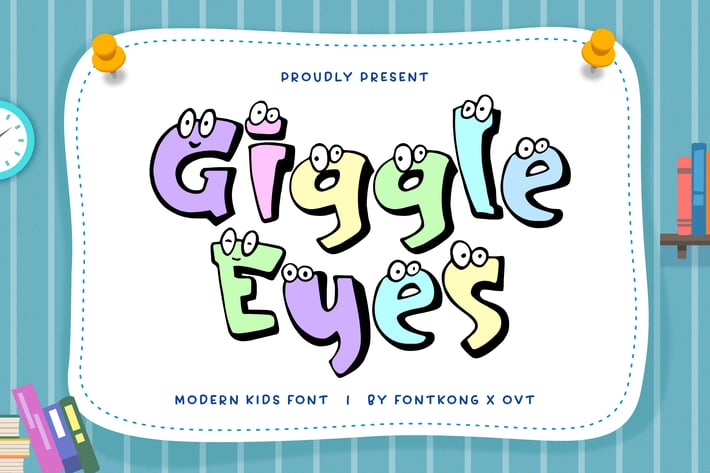
Giggle Eyes - A Modern Kids Font
Giggle Eyes is a whimsical and joyful kids font designed to bring laughter and fun to your design projects. With its playful shapes and animated letterforms, Giggle Eyes is perfect for children’s books, educational materials, party invitations, and playful branding. This font captures the essence of childhood joy, adding a sense of excitement and creativity to your work.
Crafted with imagination, Giggle Eyes features unique characters that offer excellent readability and visual appeal. Its lively design makes it ideal for headlines and display text, providing a cheerful and engaging presence. The font’s versatility allows it to adapt seamlessly to various design contexts, from digital screens to printed materials, making it a valuable asset for any designer aiming to create fun and vibrant visuals.
Celebrate the joy of design with Giggle Eyes, a font that brings the charm and humor of childhood to life. Its playful style and adaptability make it an essential addition to any designer’s toolkit for crafting delightful and captivating projects. Bring your designs to life with Giggle Eyes and let the fun begin!